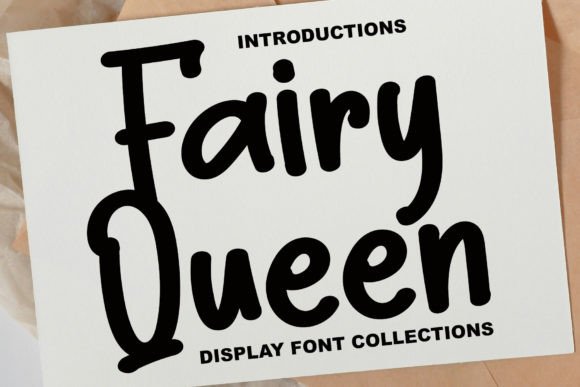
Fairy Queen Font: The Whimsical Choice for Crafters and Creatives
The world of typography is vast and wondrous, with a multitude of fonts to choose from, each with its unique character and charm. For crafters, bloggers, and creatives, finding the right font can make all the difference in bringing their ideas to life. One such font that has captured the hearts of many is the Fairy Queen font – a fun, cute, and handwritten font that is perfect for adding a touch of whimsy to any project.
What is Fairy Queen Font?
Fairy Queen is a beautiful, handwritten font that is designed to add a touch of magic to your creations. With its flowing curves and playful strokes, this font is perfect for crafters, bloggers, and creatives who want to add a personal touch to their work. The Fairy Queen font is highly versatile and can be used for a wide range of projects, from crafting and scrapbooking to blogging and social media graphics.
Key Features of Fairy Queen Font
- Handwritten with love: The Fairy Queen font is carefully crafted with a personal touch, making each letter unique and special.
- Fun and playful: This font is perfect for adding a touch of whimsy to your projects, making them stand out from the crowd.
- Highly versatile: The Fairy Queen font can be used for a wide range of projects, from crafting and scrapbooking to blogging and social media graphics.
- Easy to read: Despite its playful nature, the Fairy Queen font is easy to read, making it perfect for use in titles, headings, and body text.
10 Creative Ways to Use Fairy Queen Font
The Fairy Queen font is a versatile and fun font that can be used in a variety of creative projects. Here are 10 ideas to get you started:
- Scrapbooking: Add a touch of magic to your scrapbook pages with the Fairy Queen font, perfect for journaling, titles, and captions.
- Crafting: Use the Fairy Queen font to create adorable labels, tags, and cards for your craft projects.
- Blogging: Add a personal touch to your blog posts with the Fairy Queen font, perfect for titles, headings, and quotes.
- Social media graphics: Use the Fairy Queen font to create eye-catching social media graphics, such as quote graphics, announcements, and promotions.
- Party decorations: Create adorable party decorations, such as banners, garlands, and cupcake toppers, with the Fairy Queen font.
- Wedding stationery: Add a touch of whimsy to your wedding stationery, such as invitations, save-the-dates, and thank-you cards.
- DIY projects: Use the Fairy Queen font to create adorable labels and tags for your DIY projects, such as woodworking, sewing, and gardening.
- Kids’ party favors: Create adorable party favors, such as bookmarks, stickers, and coloring pages, with the Fairy Queen font.
- Gift tags: Use the Fairy Queen font to create adorable gift tags for special occasions, such as birthdays, holidays, and graduations.
- Sign making: Create eye-catching signs for your business, event, or home with the Fairy Queen font.
The Benefits of Using Fairy Queen Font
The Fairy Queen font offers a range of benefits for crafters, bloggers, and creatives. Here are just a few:
- Adds a personal touch: The Fairy Queen font adds a personal touch to your projects, making them stand out from the crowd.
- High-quality design: The Fairy Queen font is designed with high-quality graphics, ensuring that it looks great in any project.
- Versatile: This font can be used for a wide range of projects, from crafting and scrapbooking to blogging and social media graphics.
Tips and Tricks for Using Fairy Queen Font
Here are a few tips and tricks for using the Fairy Queen font:
- Use it sparingly: Use the Fairy Queen font sparingly to add a touch of whimsy to your projects, rather than overusing it.
- Pair it with other fonts: Pair the Fairy Queen font with other fonts to create a unique and interesting look.
- Experiment with colors: Experiment with different colors to find the perfect match for your project.
- Have fun: Most importantly, have fun with the Fairy Queen font! It’s a playful font that’s meant to bring joy and creativity to your projects.
The Fairy Queen font is a fun, cute, and handwritten font that’s perfect for crafters, bloggers, and creatives. With its flowing curves and playful strokes, this font is sure to add a touch of magic to any project. Whether you’re creating scrapbook pages, crafting labels, or designing social media graphics, the Fairy Queen font is a great choice. So why not give it a try and see how it can bring your creative ideas to life?